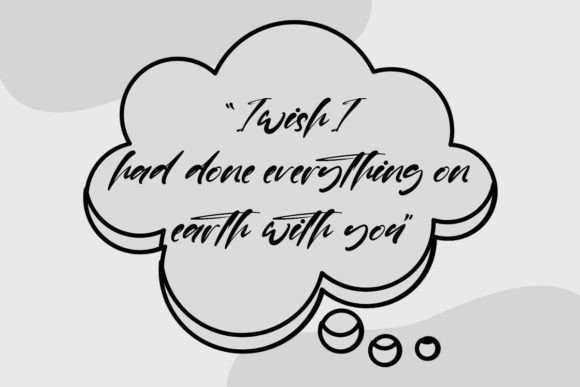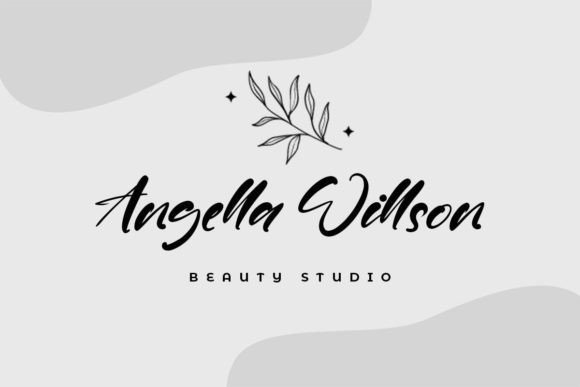
Willard Font
Willard is a fun and friendly handwritten font. Use it to turn any design idea into a true standout. Get inspired by its unique charm and create lovely designs.